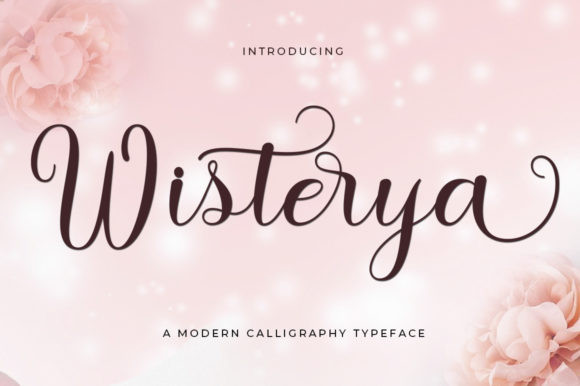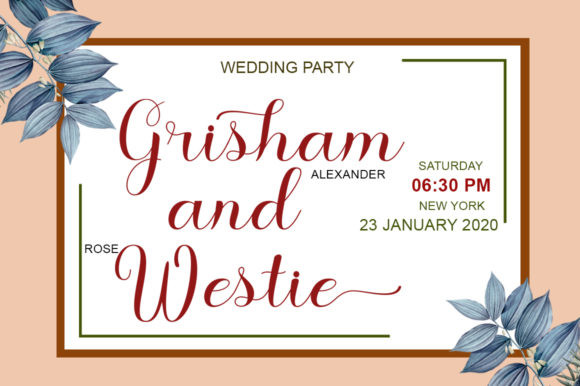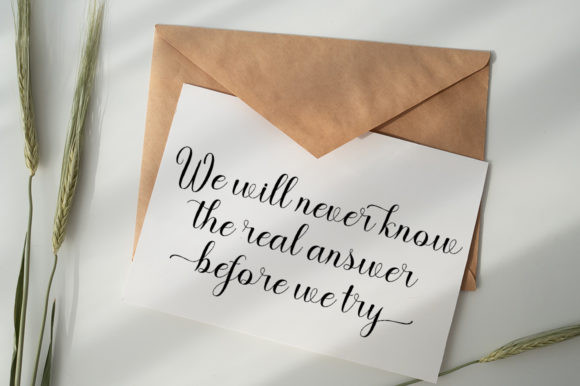
Wisterya Font
Wisterya is a playful and modern script font with an irregular baseline. Fall in love with its authentic feel and use it to create gorgeous wedding invitations, beautiful stationary art, eye-catching social media posts, and cute greeting cards.